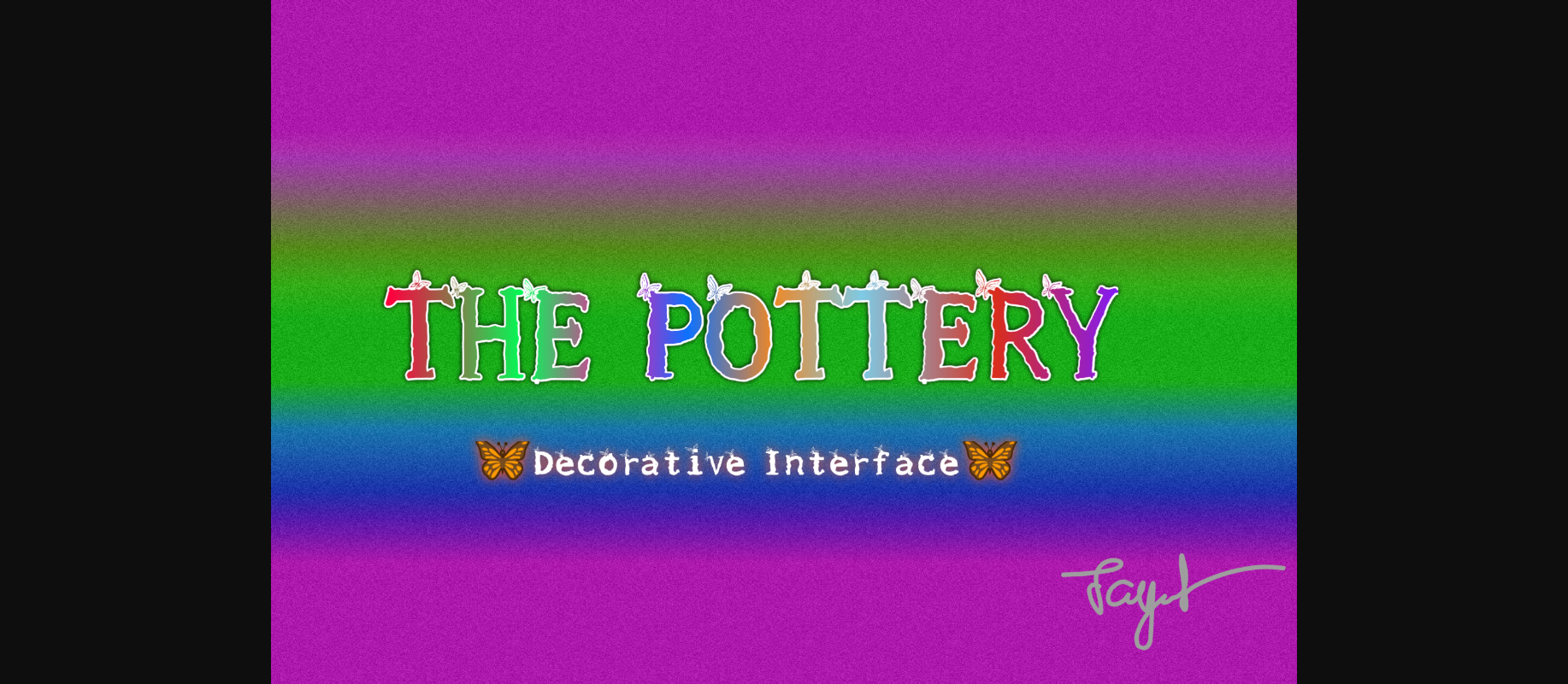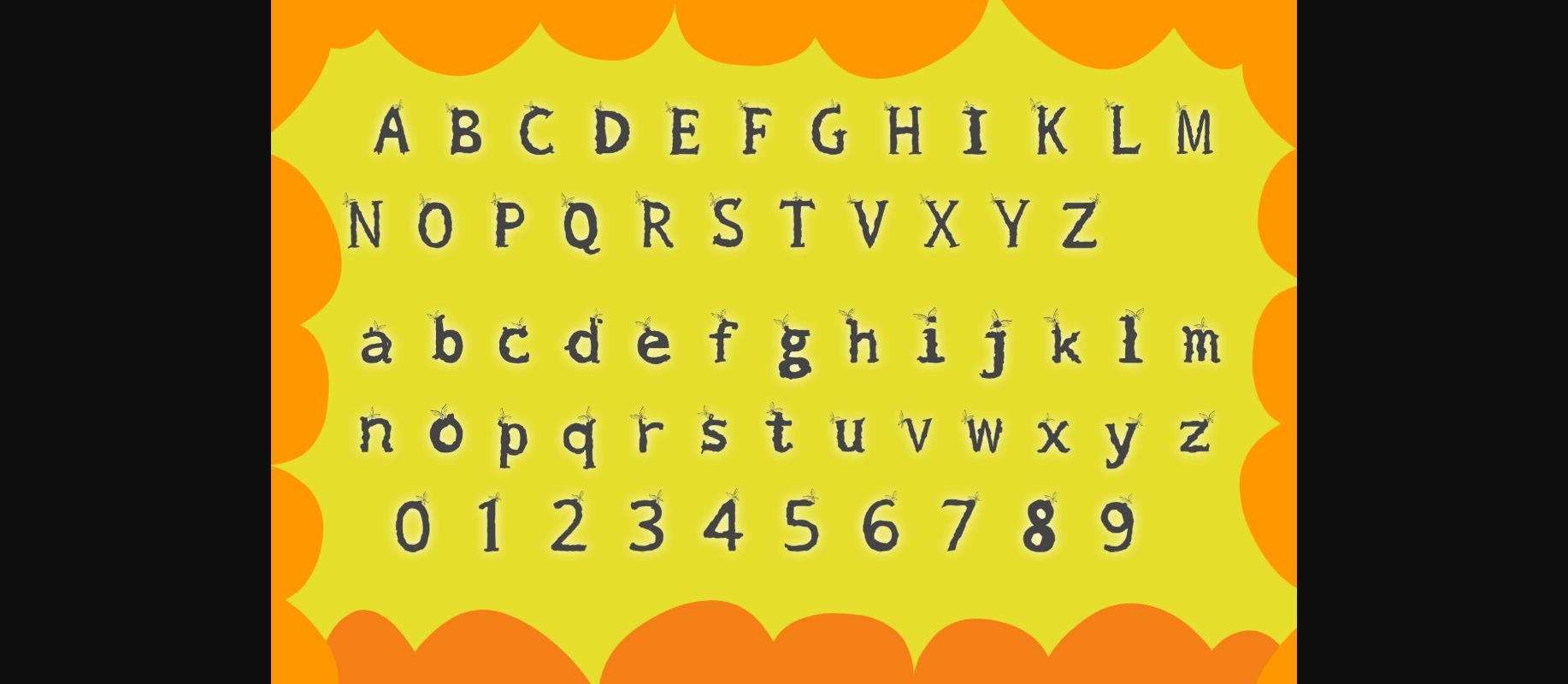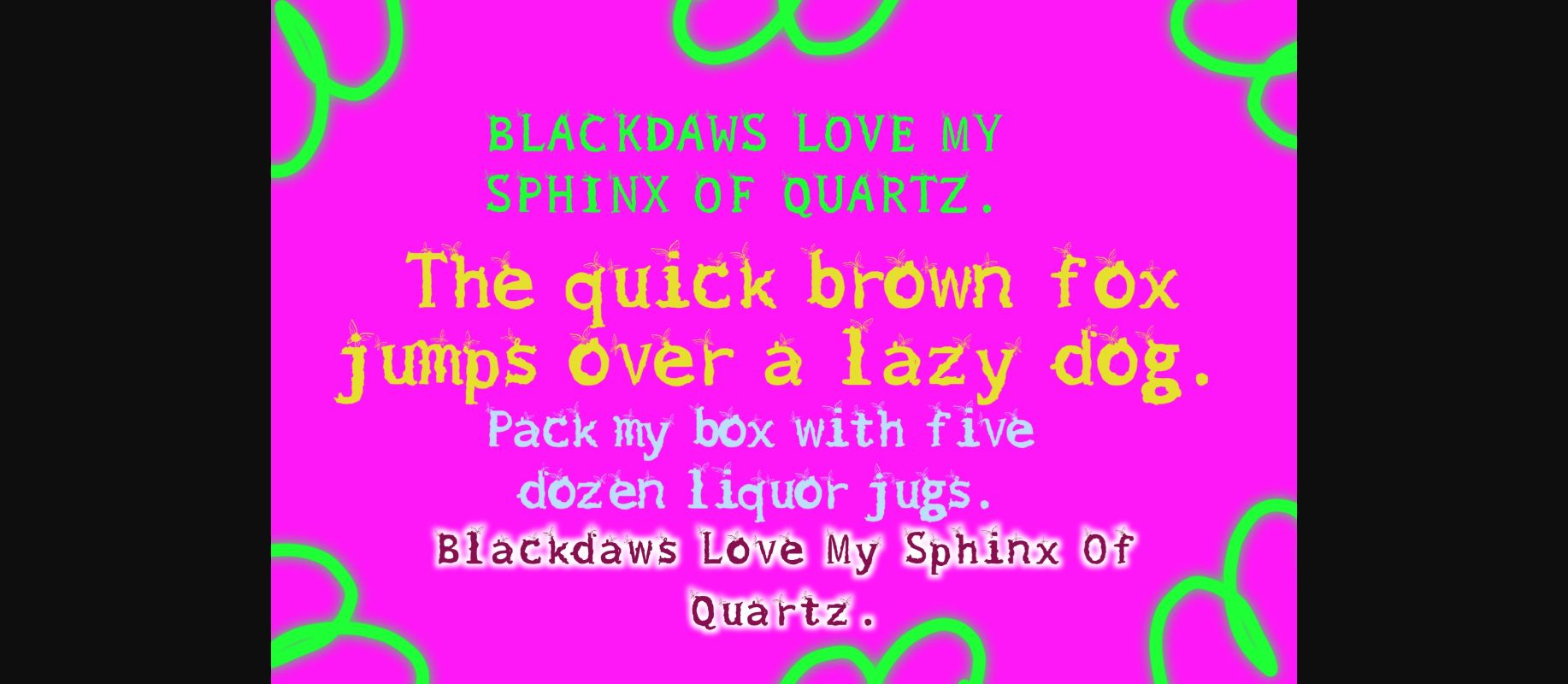
The Pottery Font
About The Pottery Font
The Pottery is a sweet and friendly decorative font, featuring lovely butterflies as ornaments. No matter the topic, this font will be an incredibly asset to your fonts’ library, as it has the potential to elevate any creation.